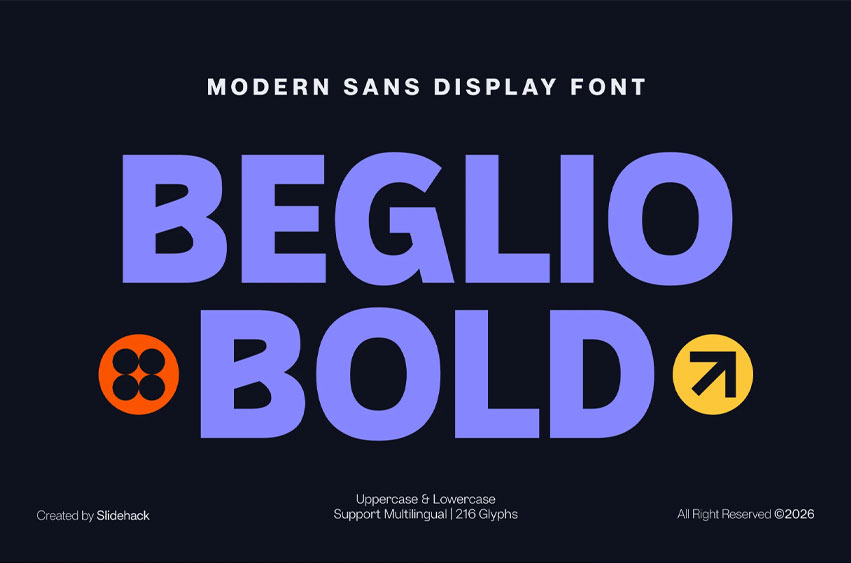
Beglio Bold Font Display Font is a powerful, modern display typeface designed to create bold visual impact. Perfect for branding, logos, posters, packaging, headlines, social media and editorial projects.
Featuring multilingual support and clean geometric letterforms, it delivers strong readability and contemporary style for standout creative designs.